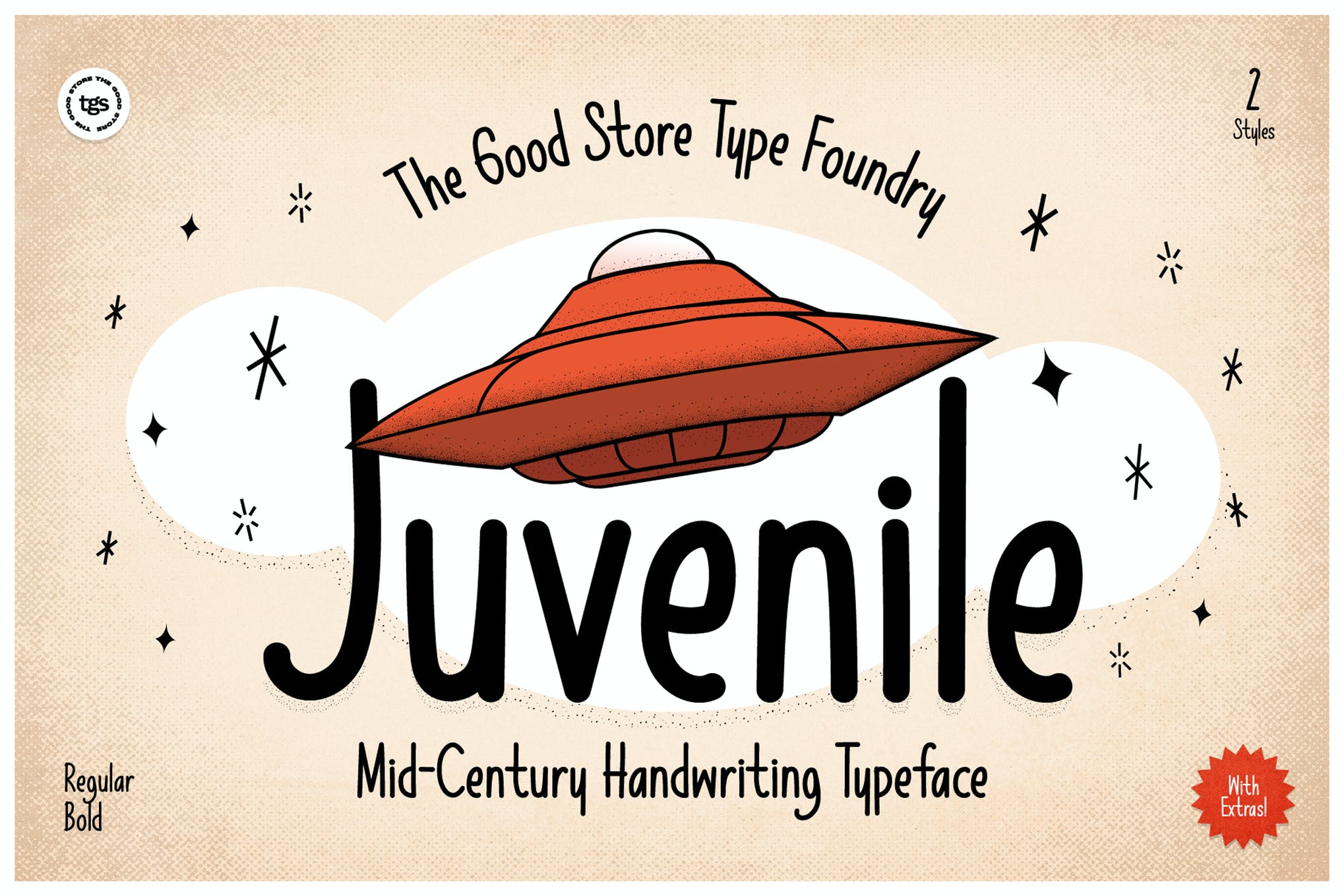
30+ Best Fonts for Flyers Design Shack
Best Font For Flyer. This stylish font has such fun cutouts. Ocean twelve font duo + extras.
Ace sans is a family of fonts that features a classy and minimalist design. Web find more good fonts for flyers on graphicriver 1. Montel is a modern typeface that will bring a brochure to life with vibrant headings. A geometric sans font created in the tradition of futura and avant garde, full sans is ideal for. This stylish font has such fun cutouts. Web best fonts for business brochures and flyers that stand out pin them for later. Web the most professional font for your brochures 1. Ocean twelve font duo + extras. It's perfect if you're looking to push a geometric aesthetic.
Web best fonts for business brochures and flyers that stand out pin them for later. Web best fonts for business brochures and flyers that stand out pin them for later. Web the most professional font for your brochures 1. This stylish font has such fun cutouts. Ace sans is a family of fonts that features a classy and minimalist design. Web find more good fonts for flyers on graphicriver 1. Montel is a modern typeface that will bring a brochure to life with vibrant headings. It's perfect if you're looking to push a geometric aesthetic. Ocean twelve font duo + extras. A geometric sans font created in the tradition of futura and avant garde, full sans is ideal for.